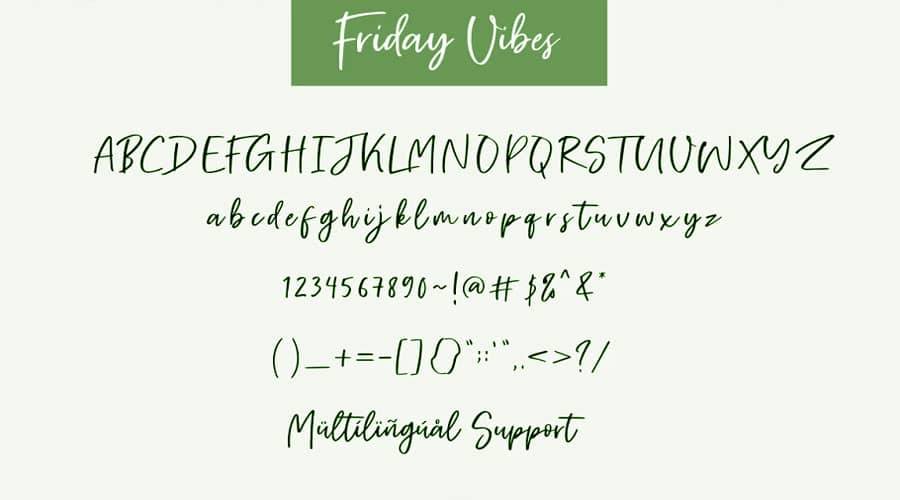
Friday Vibes Handwritten Font
Friday Vibes Handwritten Font is the latest Script and Handwritten font. The Font is invented and released by sronstudio on February 25, 2019.
Friday Vibes Handwritten Font is a simple and stylish handwriting script font and a newer calligraphy typeface in the latest handwriting style.
- Ligature
- Full set of uppercase and lowercase letters
- Multilingual symbols
- Numerals & punctuation
Friday Vibes Handwritten Font is ideal for logos and branding, invitations and postcards, wedding designs, Facebook posts, commercials, product packaging, marketing plans, analysis, videography, watermark, community events, and everything else. The Font is perfect for all type of aesthetic writing. It ends up giving a polished look to any sort of writing project.